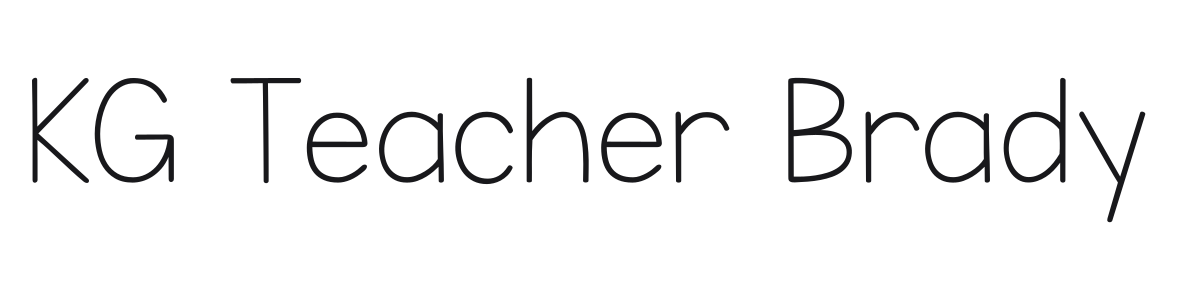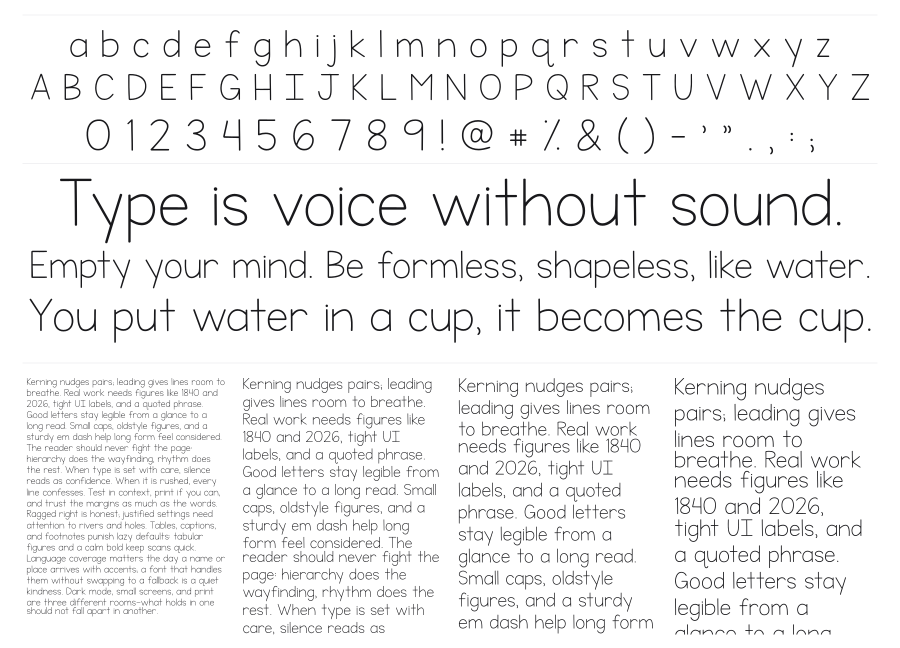
KG Teacher Brady
KG Teacher Brady is an ultra-thin rounded sans-serif with soft, rounded terminals and a light, airy feel. Its clean geometric structure and open apertures give it a friendly, approachable quality without sacrificing simplicity. Works well for light headlines, children's materials, and lifestyle branding where warmth and minimalism meet.